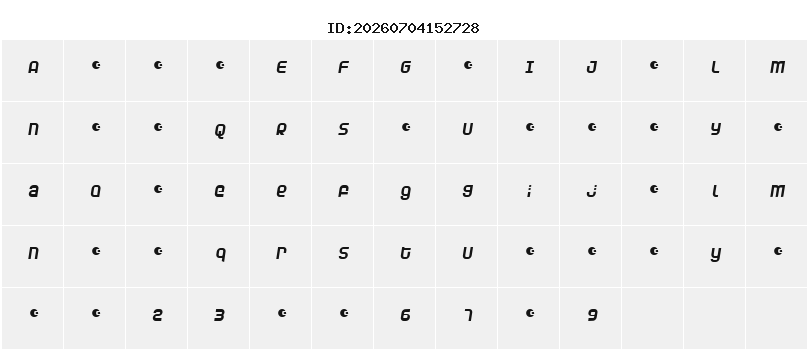
Dunebug Alternates 45MPH Preview
• Font Name: Dunebug Alternates 45MPH
• Full Font Name: Dunebug Alternates 45MPH
About Dunebug Alternates 45MPH.ttf
Dunebug Alternates 45MPH.ttf is a modern, elegant sans-serif font designed for ultimate readability and visual harmony. Perfect for branding, headlines, web design, and print materials.